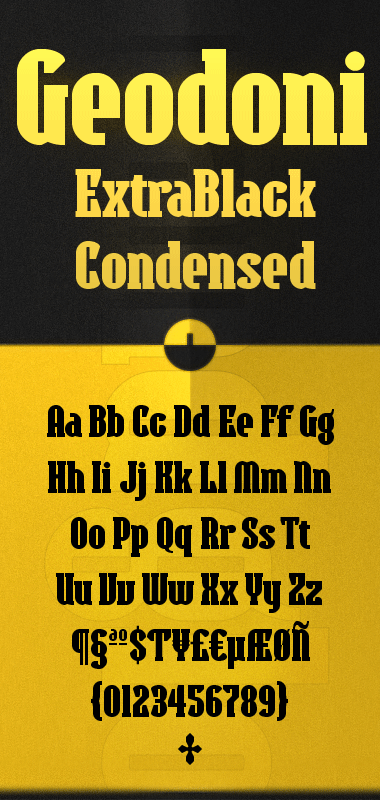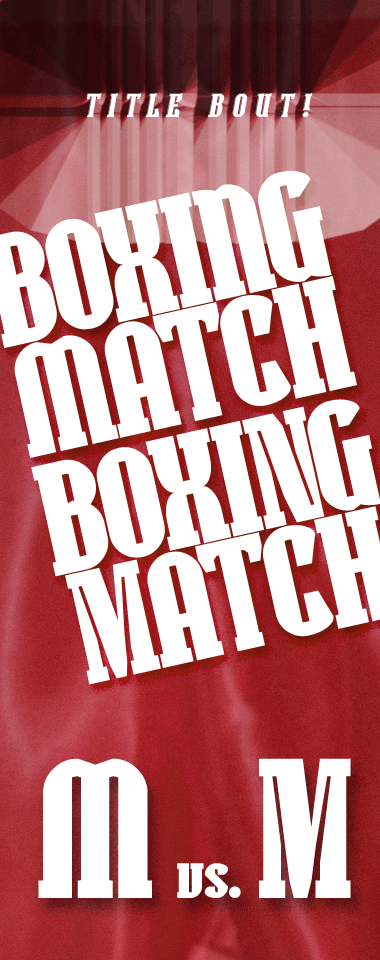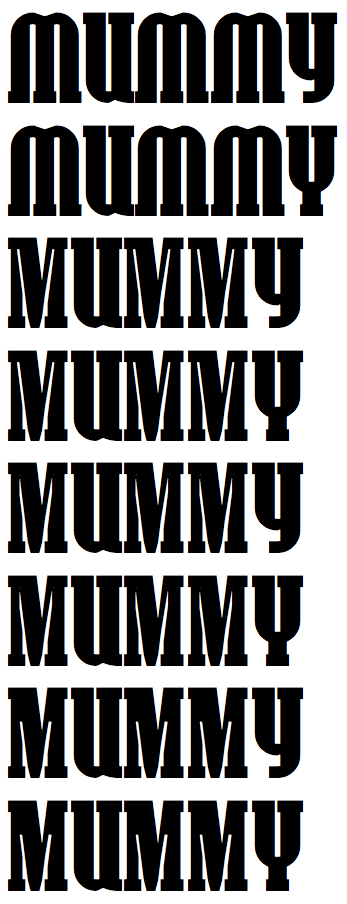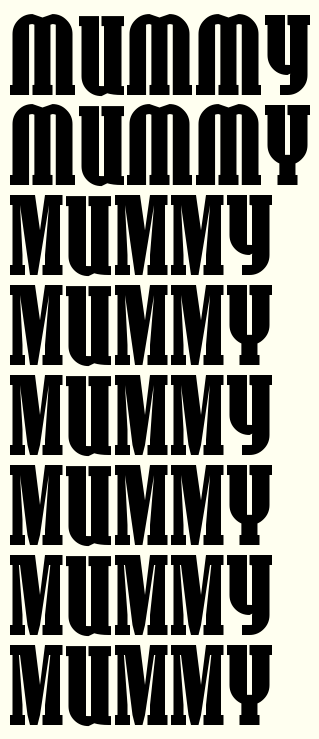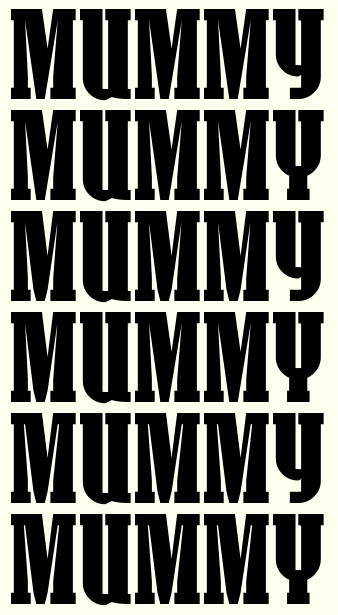
filters: 2x2
x-height: 3 bricks (x2) = 6 grid spaces
cap, ascender height: 4 bricks, 8 grid spaces
Narrow and heavy, ultra bold Piano key designs once required fractional brick scaling to generate their distinctive slit-like counter forms while working with maximum curves. Composite stacks provide a more elegant and versatile solution to this old problem. In this way, they can be seen as an important milestone on the road toward individually scalable bricks...
Letterspacing is kept tight in this fontstruction, but still needs a great deal of manual kerning especially around all the character lacking serifs on one or both sides.
The extended character set is always easier to achieve when advanced scaling uses integer values than when fractional values are used. Fractional scaling schemes also populate fontstructions with tiny flaws in the form of gaps and notches, even where they are cleverly hidden in the best case.
There is still life left in the "vanilla" Fontstruct method.
Vanilla is also not making use of a super-huge grid to achieve mock-bezier effects. (Pause while own trumpet is blown.) I believe I was one of the first 'Structors to fake curves in this way. And what a nightmare it was; the software wasn't really up to it at the time. So that's a somewhat dubious claim to fame.
So for better or worse, I've joined the tortured holy order of the unadorned brickspace: using only real curves or a modified octagonal approach as a shorthand for curves. Vanilla.
By hook or by by crook I'm going to get a believable s out of five bricks x-height if it kills me. It probably will.
Just one small note: I had to clone it because I was puzzled about the main gliph-struct, and i noticed that in some letters (e.g. A and H) the right serif at the bottom of the left stem has a small bracket made with a macaroni brick (very nice detail indeed) but the serif is not straight along the baseline, as if an half- or quarter-brick is missing: was that intended?
For sure the image below is clearer than my clumsy description.
@Em42: Nice catch! Really, i needed to go back and review all the instances of bracketing because my initial publishing had a rather scattershot execution of that beloved but bungled detail!
A very large part of the huge download count came from troubleshooting some software glitches at the very end of my fontstructing process. I was tracking down these invisible bricks that caused unpredictable output from the fontmortar, but could rarely be viewed or otherwise accessed in the fontstructor. I tried all kinds of reconstruction techniques, and once that was all sorted out I failed to regain my focus on several of these minuscule but very important details of the serif design as well as a couple other bricks that straight up vanished or were otherwise omitted.
So thanks for offering your careful attention and encouraging me to revisit them. My mistake shows me the importance of a more thorough review of each glyph before publishing (with and without outlines turned on).
Continuing with intaglio’s culinary allusion, it pleases me to no end that a true iron chef such as yourself of this “vanilla” school of fontstructing takes such interest and appreciates the beauty of my achievement in these design schemata. I think cloning at this time will reveal a more consistent execution throughout the fontstruction, thanks in large part to you. : )
@intaglio: Thanks, my friend! I wouldn’t exactly call my fontstructing endeavors “vanilla”, but I like the nomenclature and analysis you offer! It was for the possibilities opened up for all the different approaches you name (and the blurred line between them) that i diligently kept pursuing the once only dreamed boolean AND feature to the radical if impatient eventual solution of isolating the brickstacking glitch, and I think this salad-day memory most fittingly captures what I have intended in my work here.
So much of your recent works from zingaling on are also favorites of mine. You keep on whipping up these tasty tiny grid treats! I respect your tireless pursuit of a unique and charming interpretation of brush- and pen-like ductus using grids of all sizes. You’ve taken this further than anyone here!
Fs Kronos has an s five grid spaces tall and achieves that with 2:2 filtering (so is 2.5 bricks tall). Geodoni Extra Black Condensed also uses 2:2 filtering and has an x-height of six grid spaces (three bricks tall). Do you want to create an s that is 5 bricks tall in the sense that, with 2:2 filters turned on, it would occupy 10 vertical grid spaces?
@thalamic: Haha, I like how you write my name. So much better than the will.i.30s going around ; ) Thanks for understanding and appreciating why I make my fontstructions cloneable. It is not so much for inspiring derivative works, though they can be awesome too, but for empowering other fontstructors with my unknown techniques. I don’t do a good job of documenting and translating, so I guess speaking fluent fs-ese is the price of admission.
I hope my comments will change this, and lead you up the path of perfect font making, with a full family of weights, being used internationally, and with some financial reward to pay for your hobby....... and also a decent Font editing software program. :-)
too perfect to exist